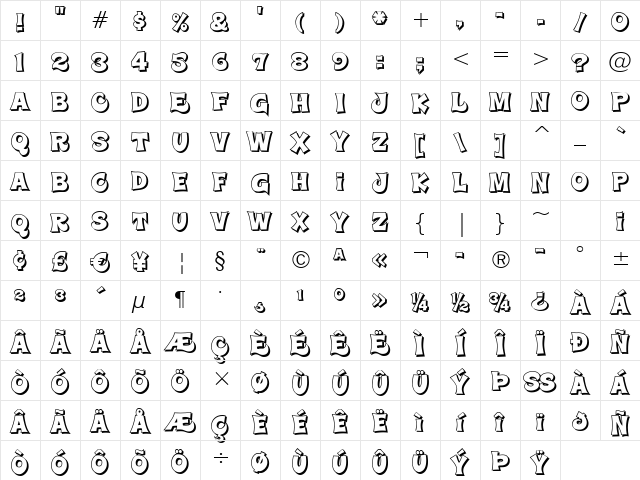
Complete Super Delicious BTN Shadow Regular glyph index. Displaying only characters natively supported by Super Delicious BTN Shadow Regular font.
Super Delicious BTN Shadow is built around its visual character rather than neutral utility - its distinctive forms are designed to make an impression at display sizes.
Font Pairing: Pair with a clean neutral sans-serif for body copy to let Super Delicious BTN Shadow's character lead without overwhelming the composition.
Pro Tip: Use Super Delicious BTN Shadow exclusively at display sizes - it was designed to be seen, not read at length. Let a neutral companion handle body copy.